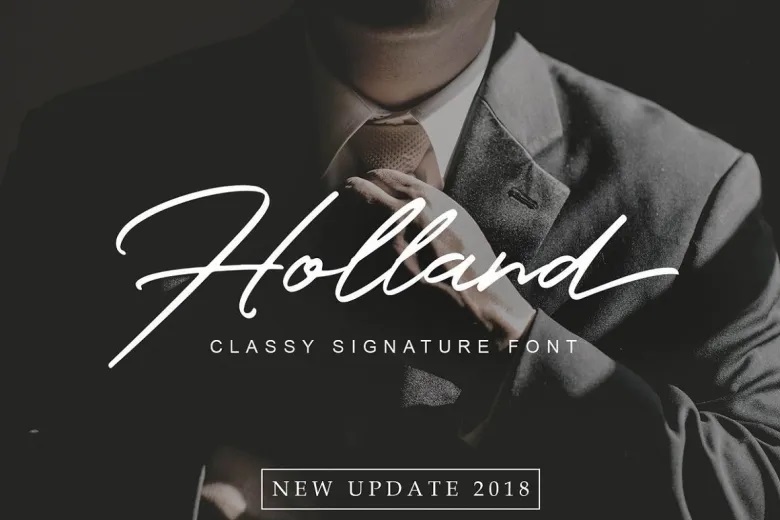
Holland Font
Holland Script Font! This is a high quality typeface of Lettersiro Co that people can actually go to creativemarket site or better still they can download it. Holland Script is lovely modern typeface and used in signature, wedding photographer branding, and signatures and is quite simple looking, but has good structure.
Holland Handwritten Script Font